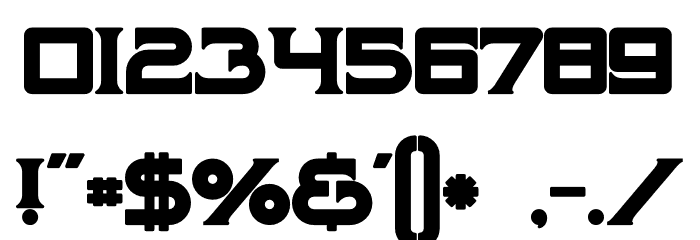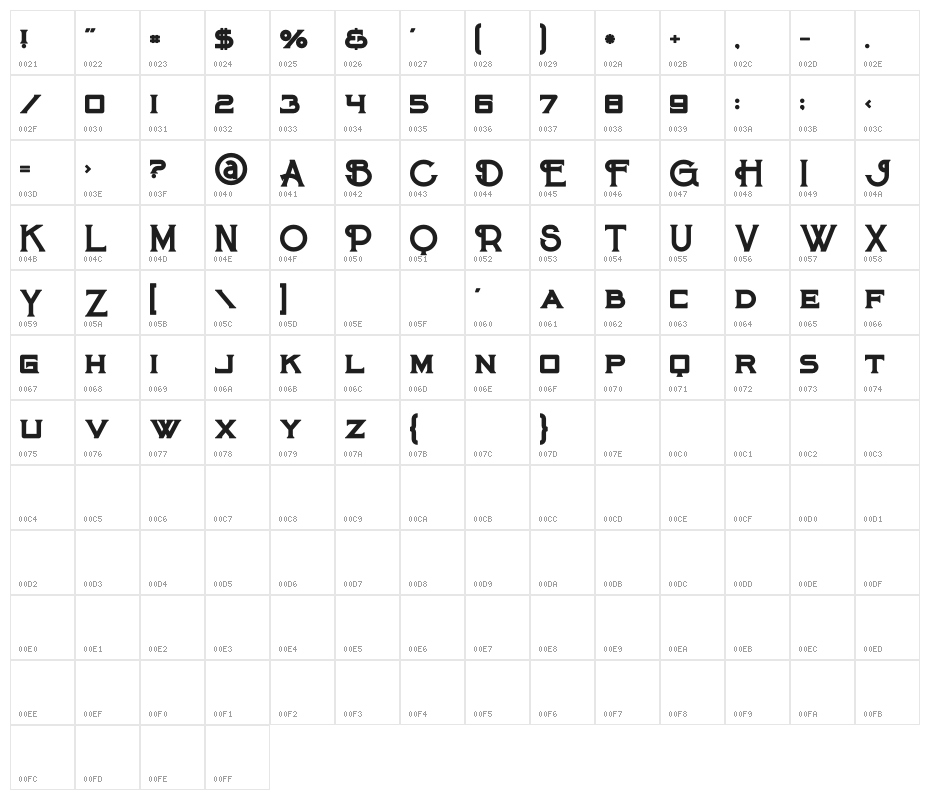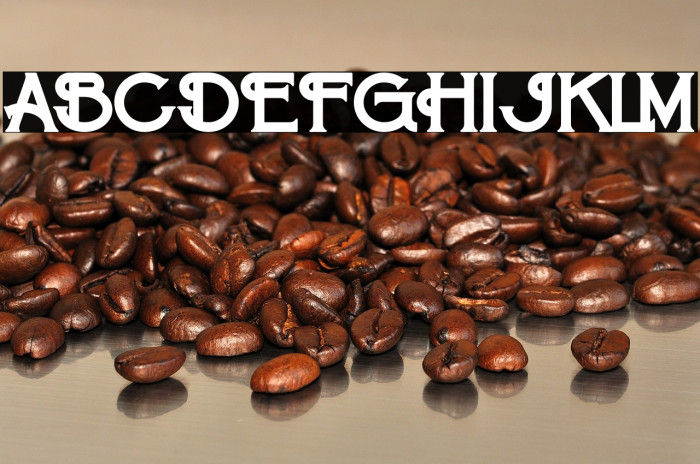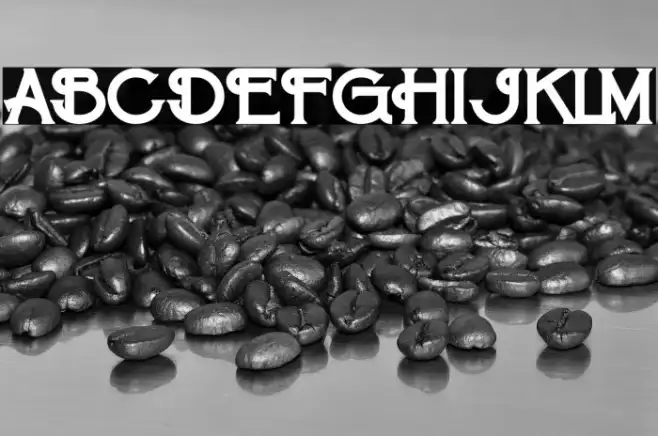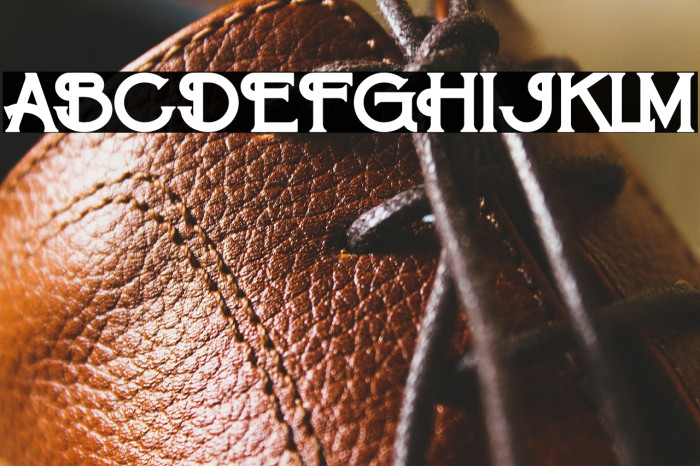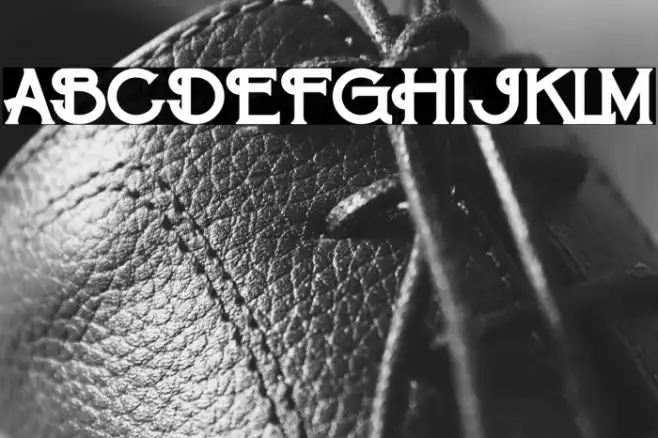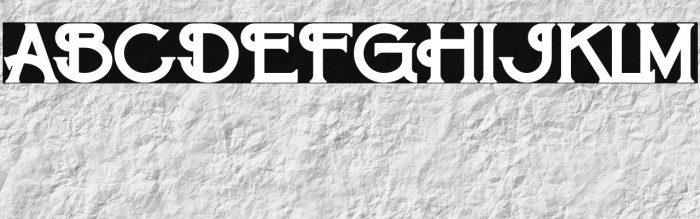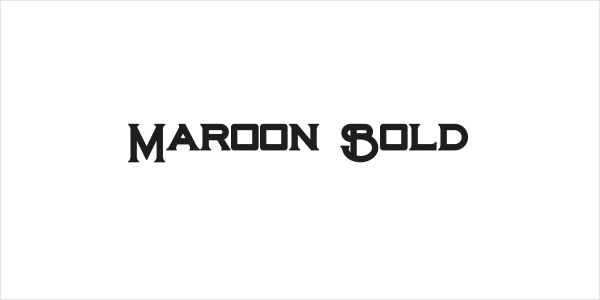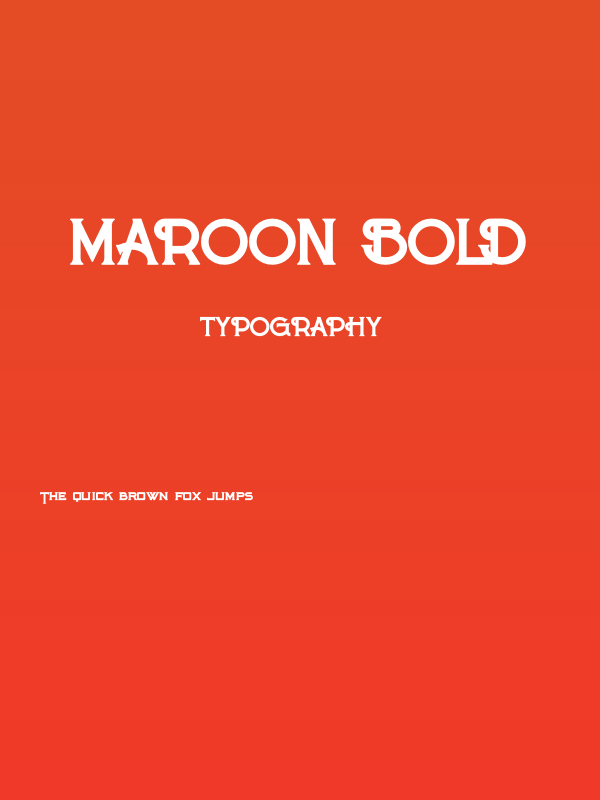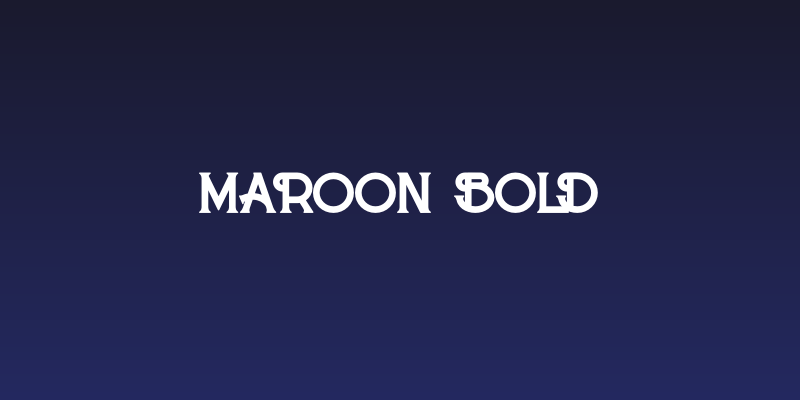
Maroon Bold Font
Maroon Bold Description
This font features a bold and striking design with a unique blend of geometric and decorative elements. The uppercase letters are characterized by sharp angles and distinct serifs, giving them a strong presence. The lowercase letters maintain a consistent style, with a slightly condensed form that enhances readability. Numbers are bold and uniform, matching the overall aesthetic. Special characters are crafted with attention to detail, ensuring they complement the letterforms seamlessly. This font's boldness and decorative flair make it suitable for impactful designs.